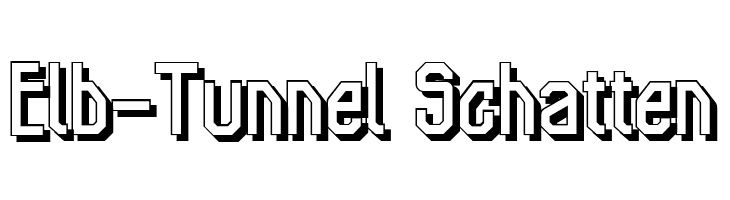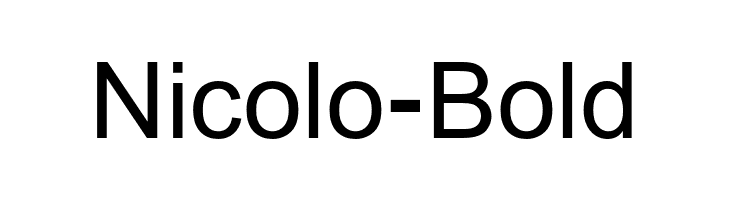
A playful, bold font with exaggerated curves and a whimsical style.
A decorative and ornate font with intricate details and a vintage-modern blend.
A bold, three-dimensional font with a shadow effect and geometric style.
A geometric, angular font with a bold, industrial style.
A modern, italic sans-serif font with clean lines and balanced proportions.
A bold, modern sans-serif font with excellent legibility and balanced proportions.
A bold, italicized sans-serif font with a modern and clean design.
A clean, modern sans-serif font with balanced proportions and high legibility.
A bold, handwritten font with a lively and dynamic style.
An elegant, flowing script font with ornate, cursive letterforms.